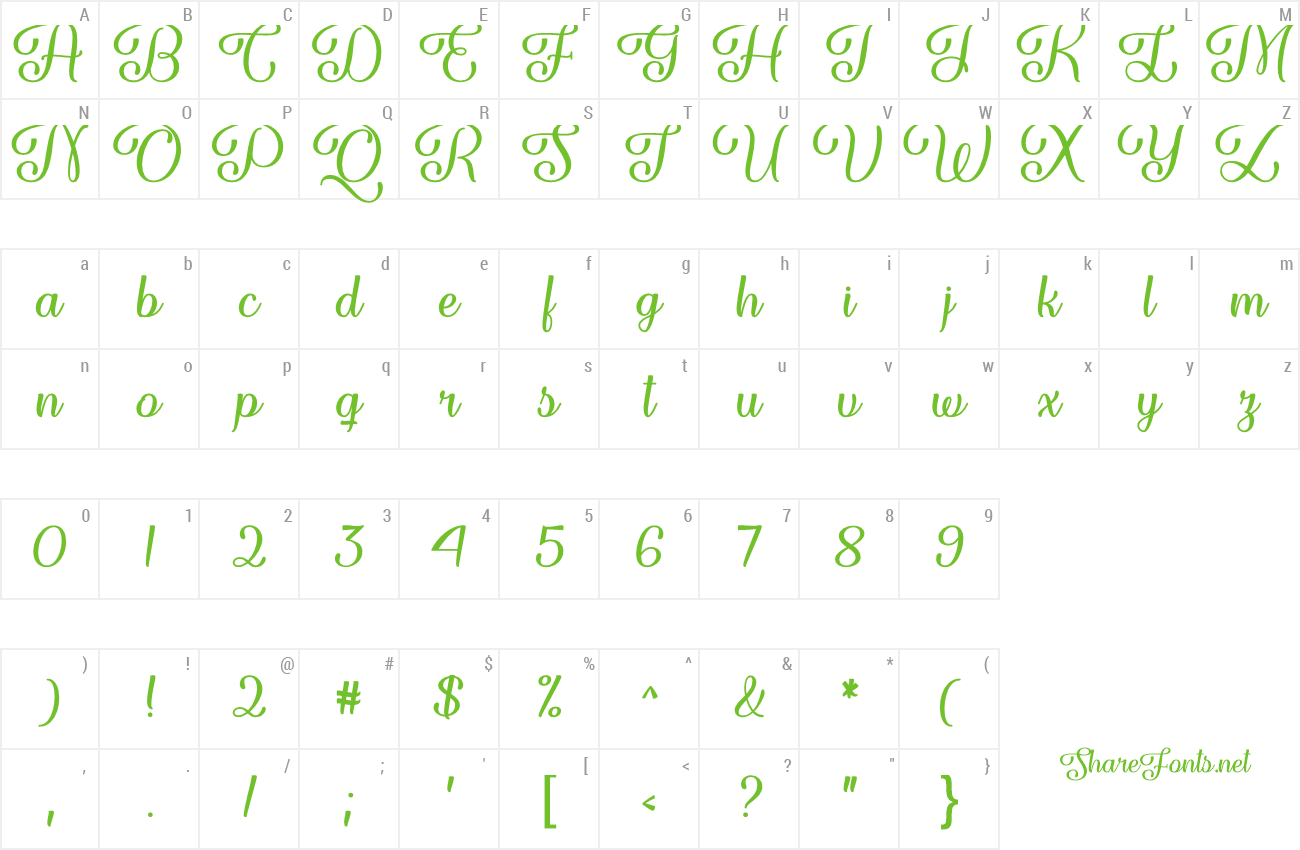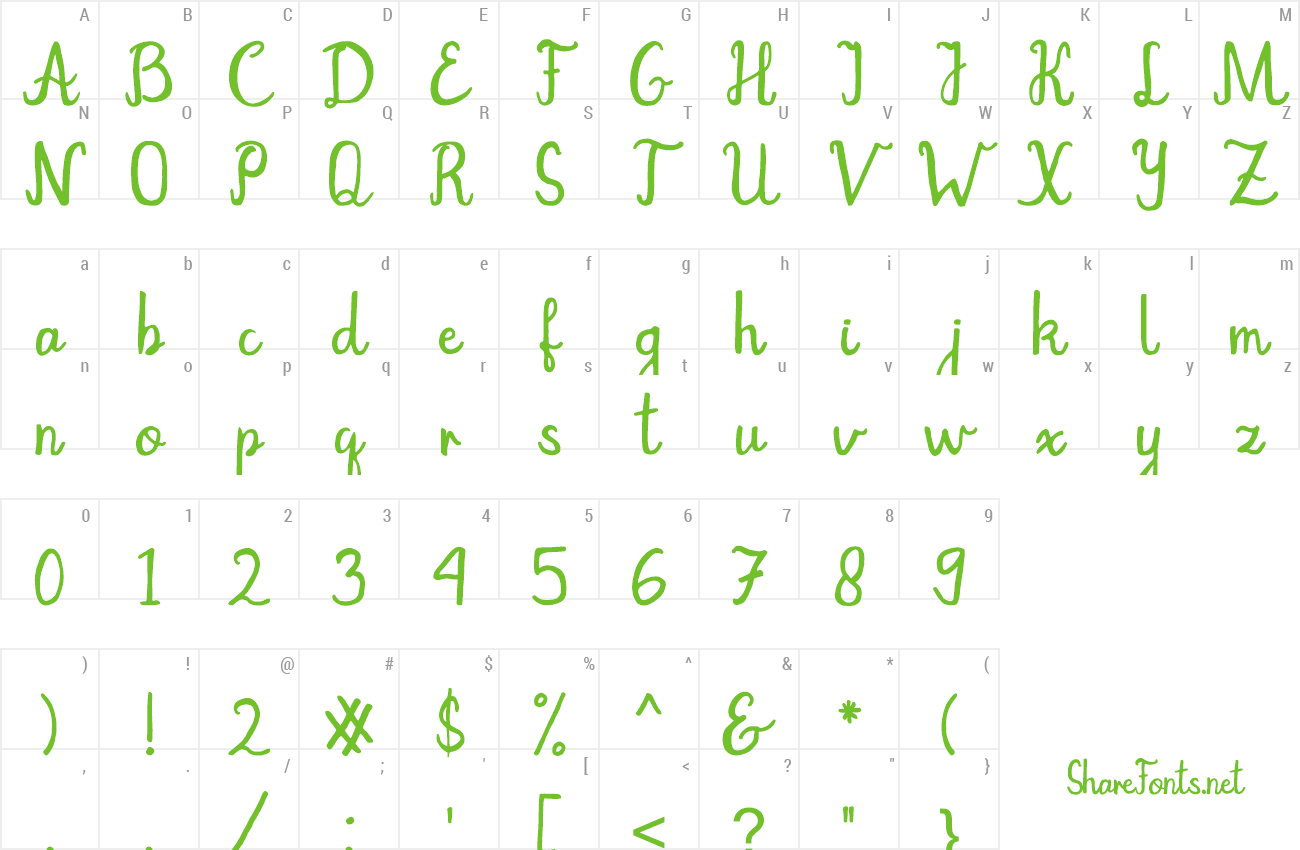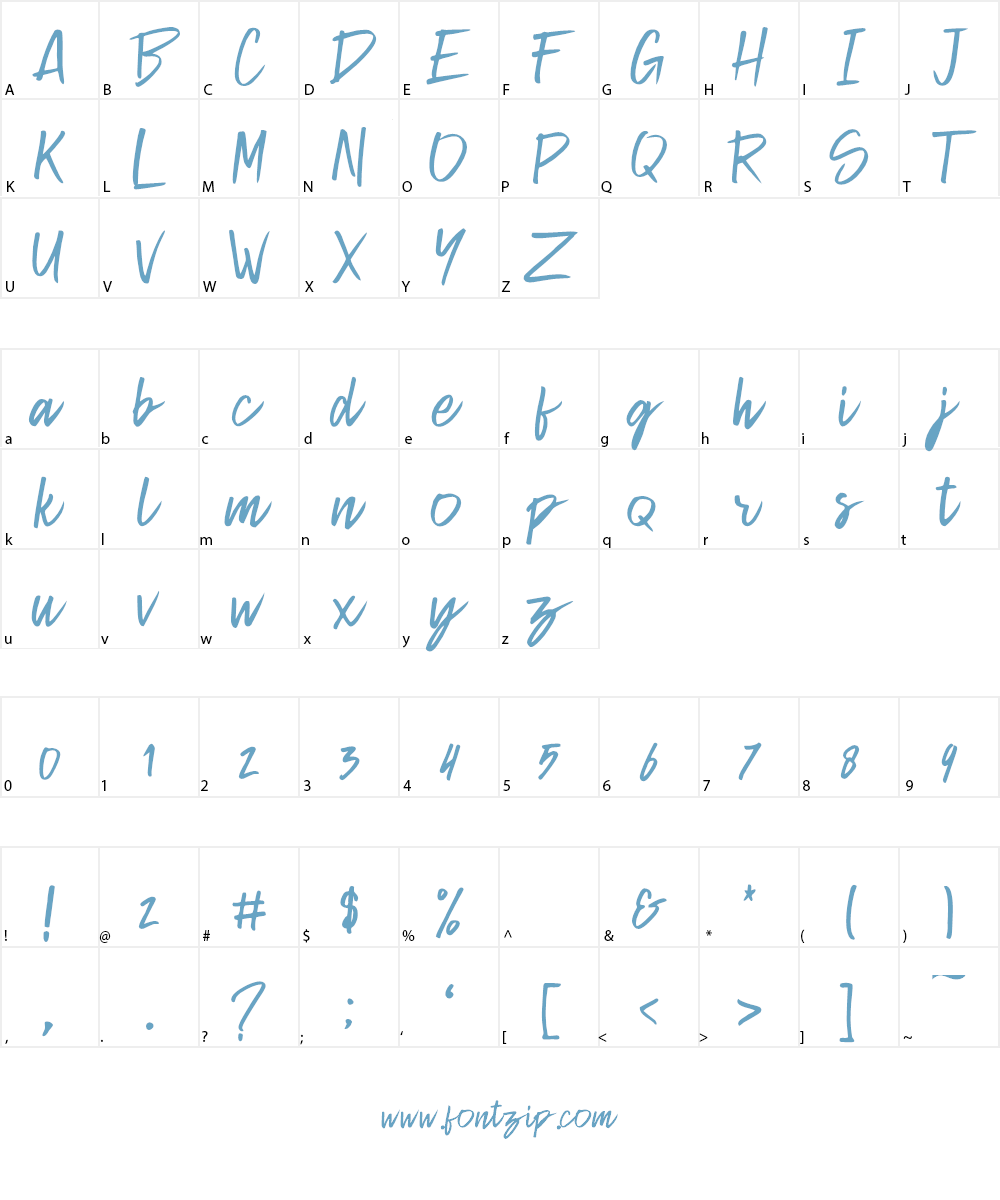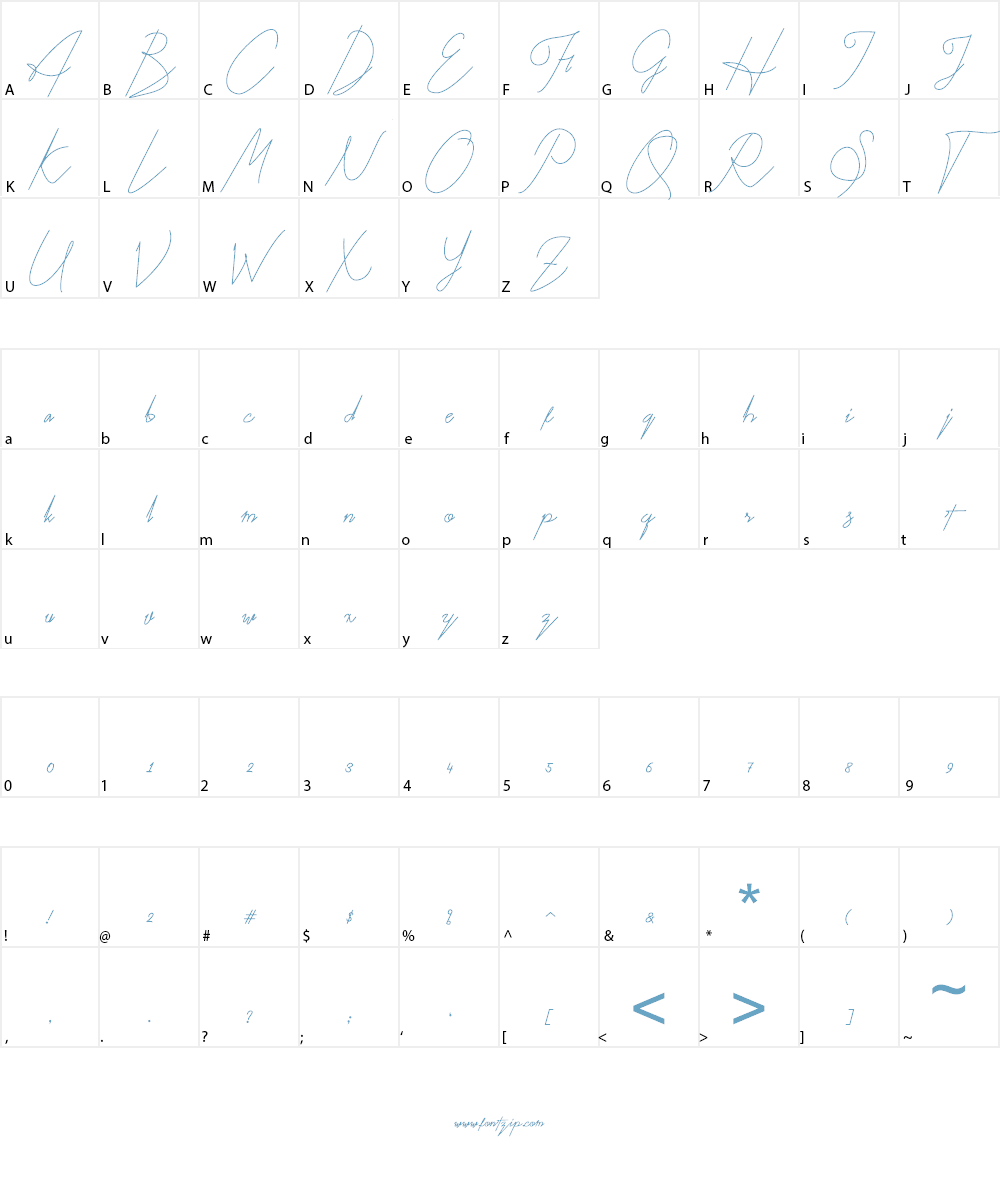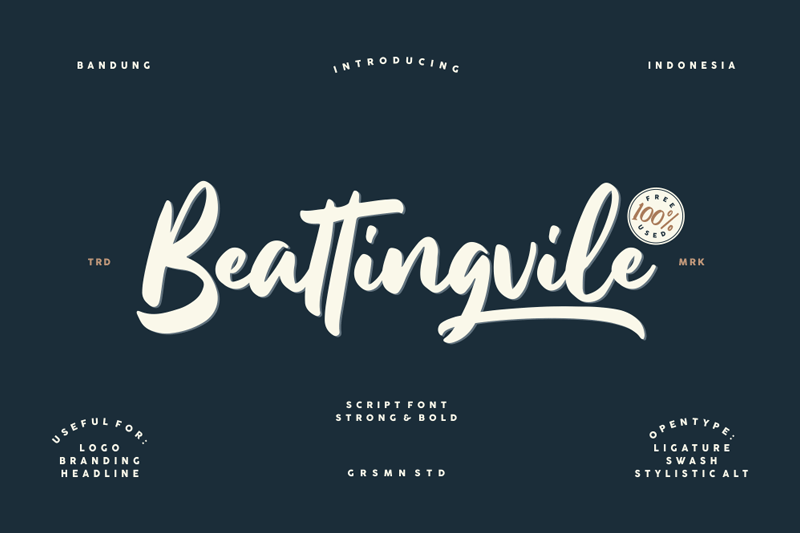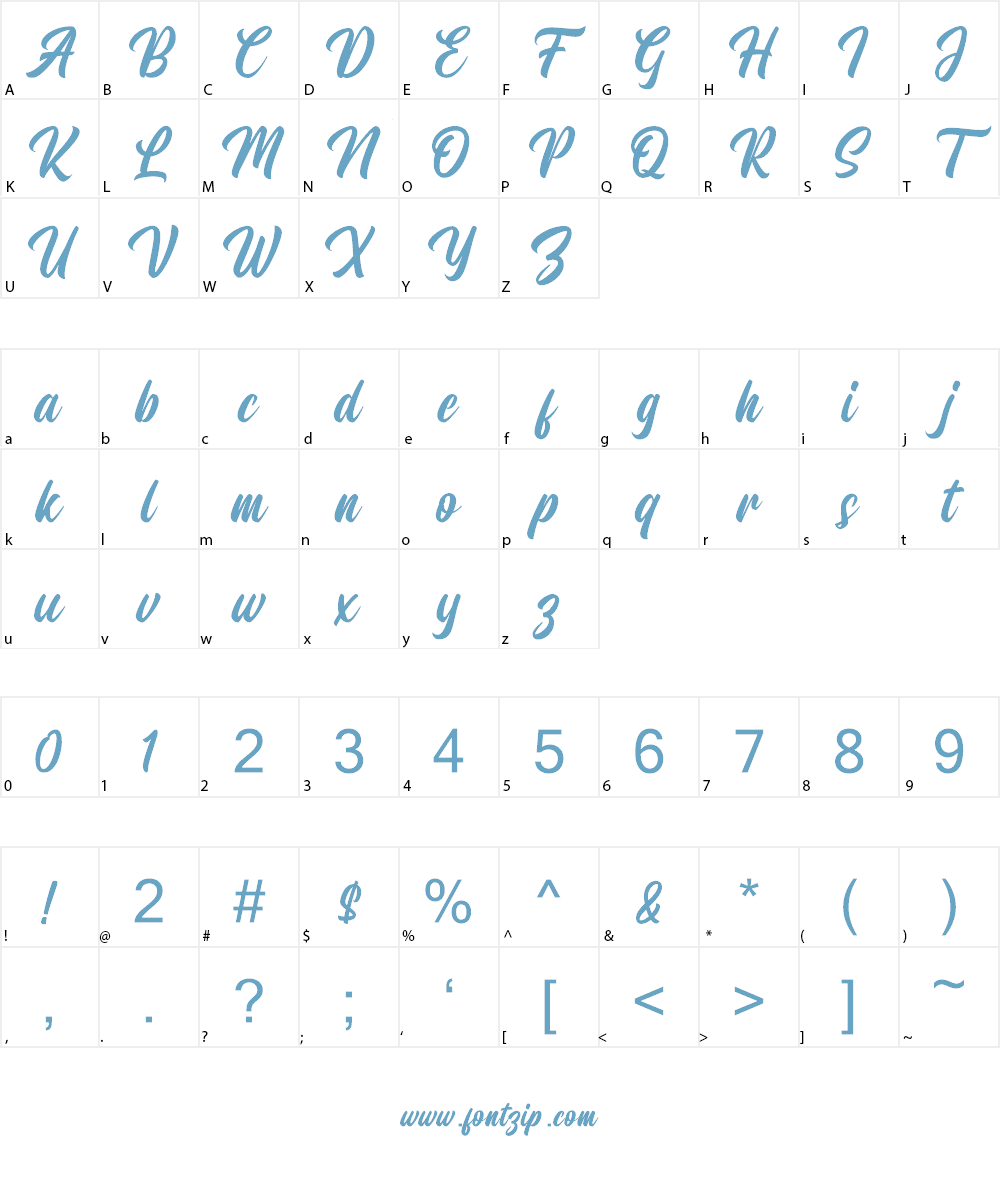
script fonts samples
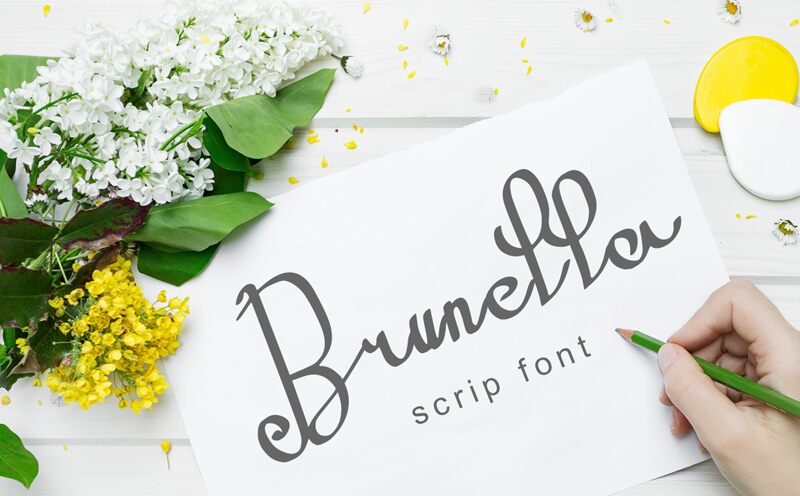
Script fonts samples. Sofia is a casual semi connected script font designed by latinotype. It was designed by typadelic. Fonts font examples script fonts cursive fonts handwriting fonts calligraphy fonts gothic fonts display capitals fonts animated ad banners web page design. Its a semi connected script font as some letters connect elegantly with one another while others do not.
Script typefaces are based upon the varied and often fluid stroke created by handwriting pretty much like the cursive fonts just typically more elegant. This list details standard script fonts used in classical typesetting and printing calligraphic. Black jack is a casual script font with a brushed design. On this page i wont show any tricks but i will show the range of font variations that css allows.
Examples of free handwriting fonts script fonts in this article youll find great examples of free handwriting fonts script handwriting fonts from which youll surely choose one to use. See how typefaces will look like using various sample layouts. Samples of calligraphic script typefaces. They are organized into highly regular formal types similar to cursive writing and looser more casual scripts.
It comes in a single style with over 200 glyphs.